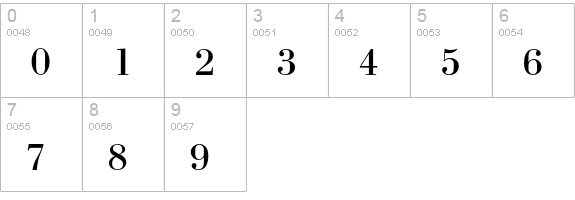
PT Bodoni Cyrillic Font Details
The PT Bodoni Cyrillic font is a timeless and elegant typeface that exudes sophistication and charm. With its classic serifs and graceful curves, this font is perfect for adding a touch of refinement to any design project. Whether you are creating invitations, signage, or branding materials, PT Bodoni Cyrillic will help you achieve a polished and professional look. What's even better is that this exquisite font is available for free download at FontsMarket.com. So go ahead and enhance your designs with the beauty of PT Bodoni Cyrillic, without having to spend a penny. Download now and elevate your work with this exquisite typeface!